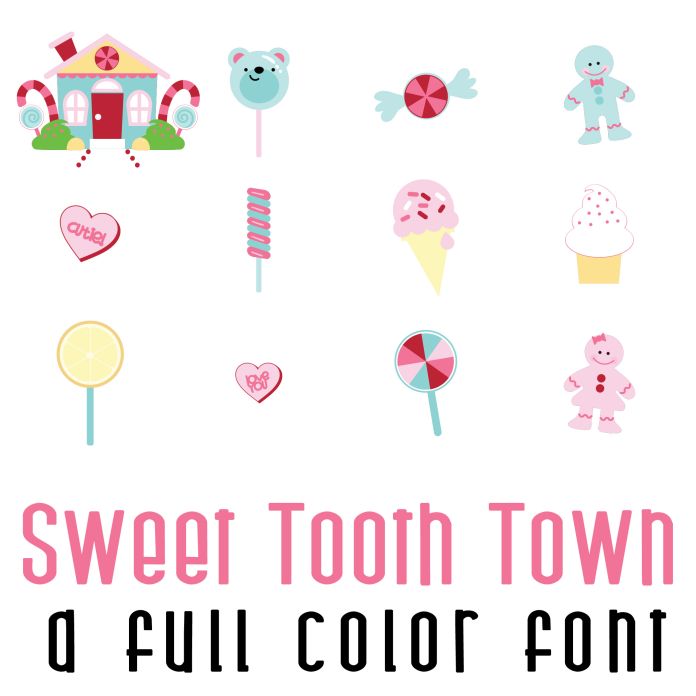
This fun full color font features 26 adorable images of candy treats and a gingerbread house perfect for cards, crafts, classrooms, scrap book pages, planner stickers and more!